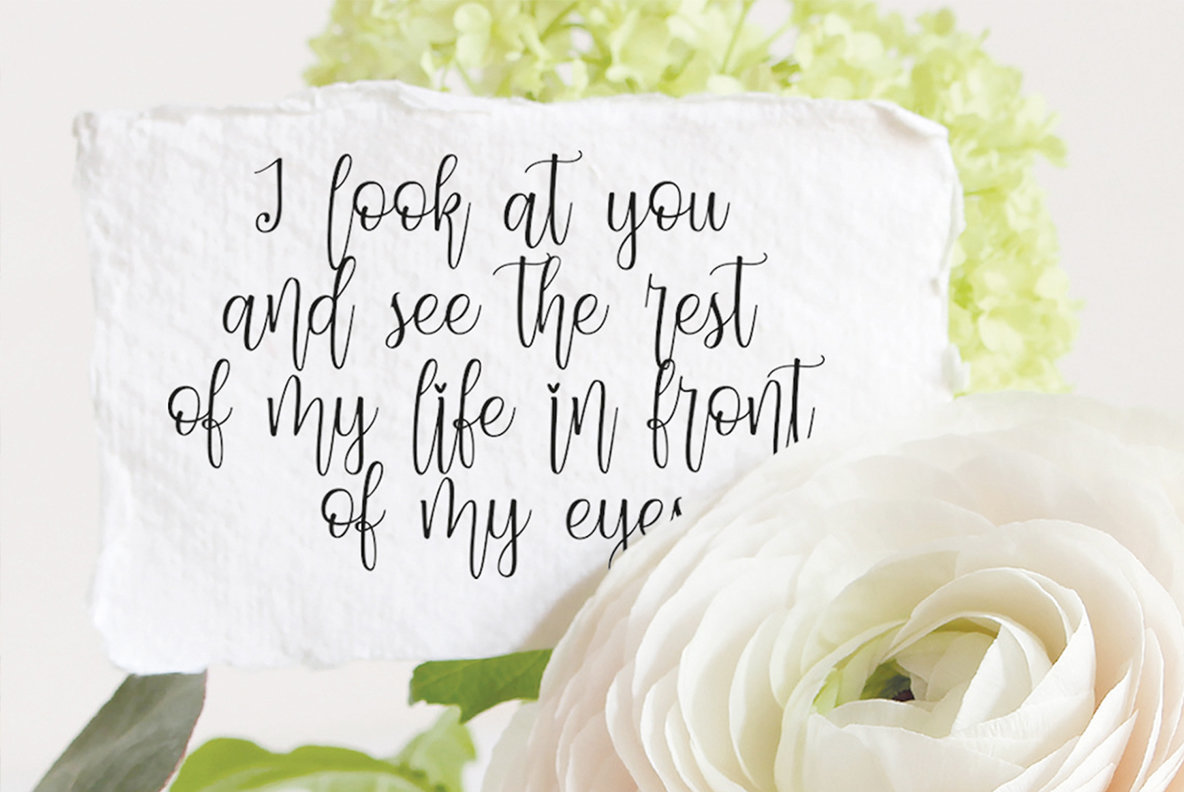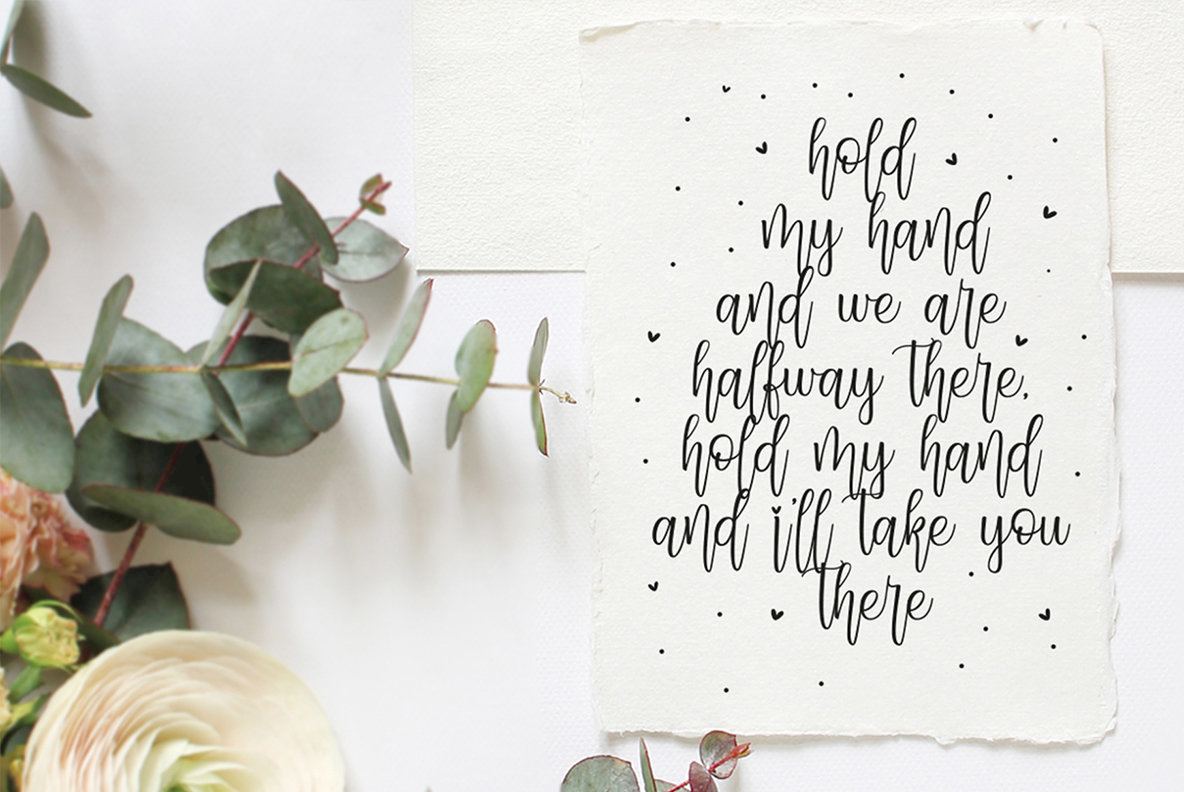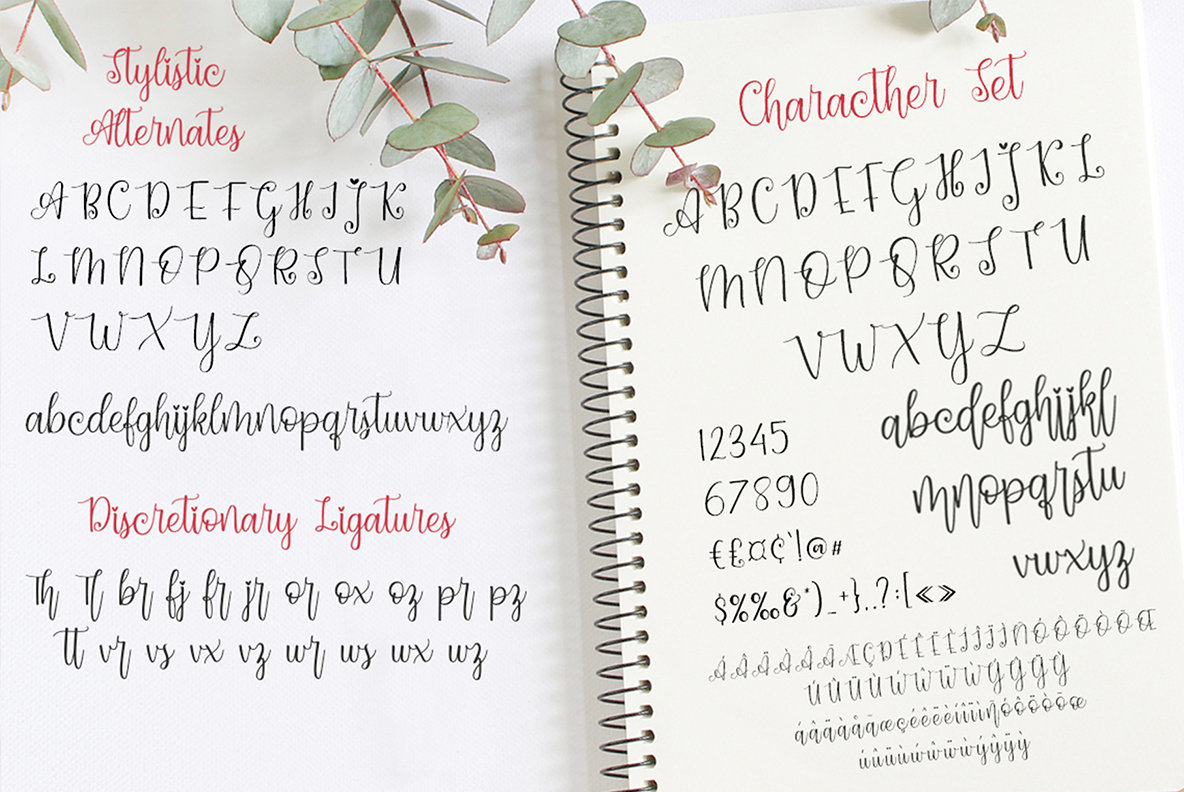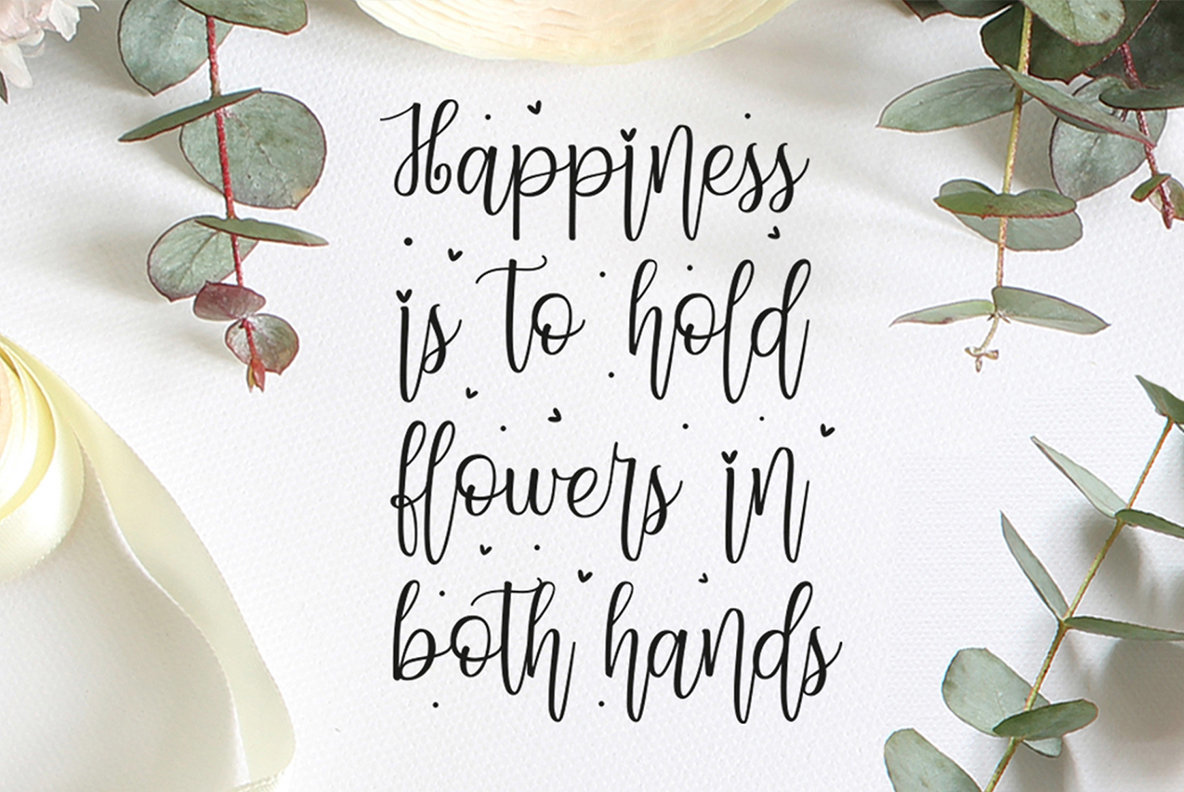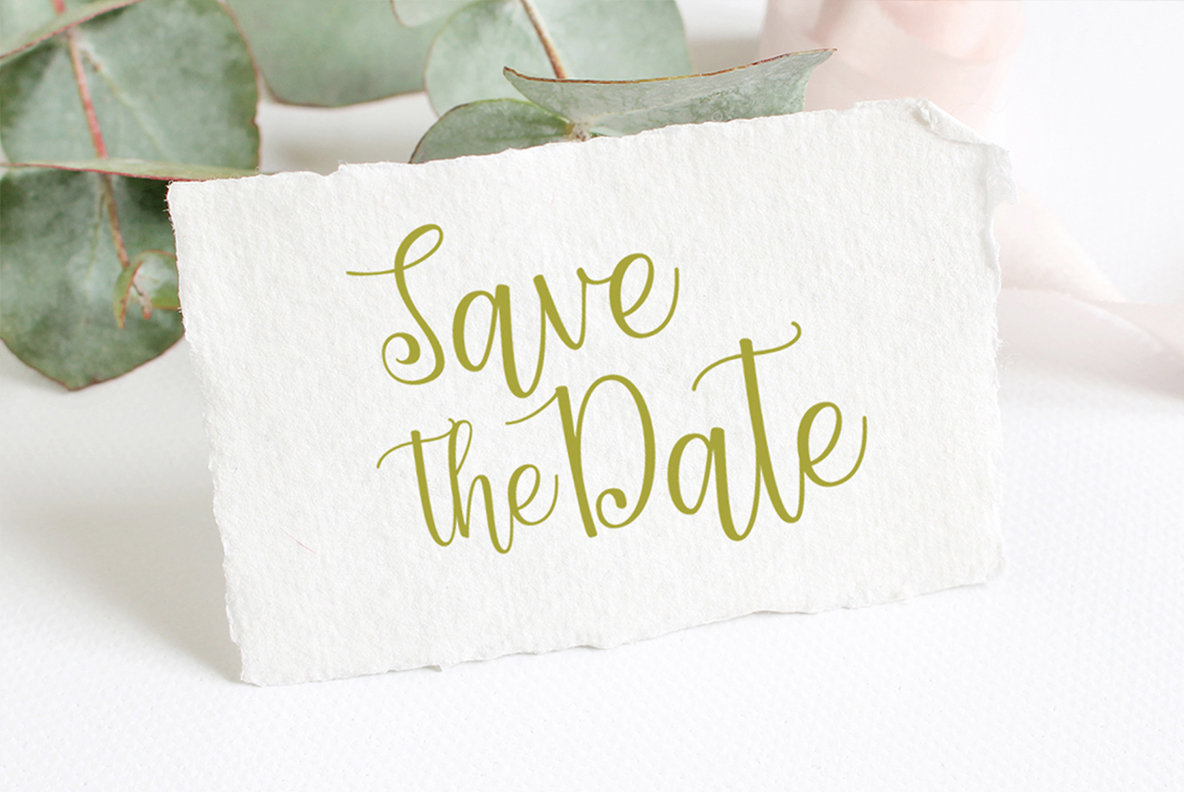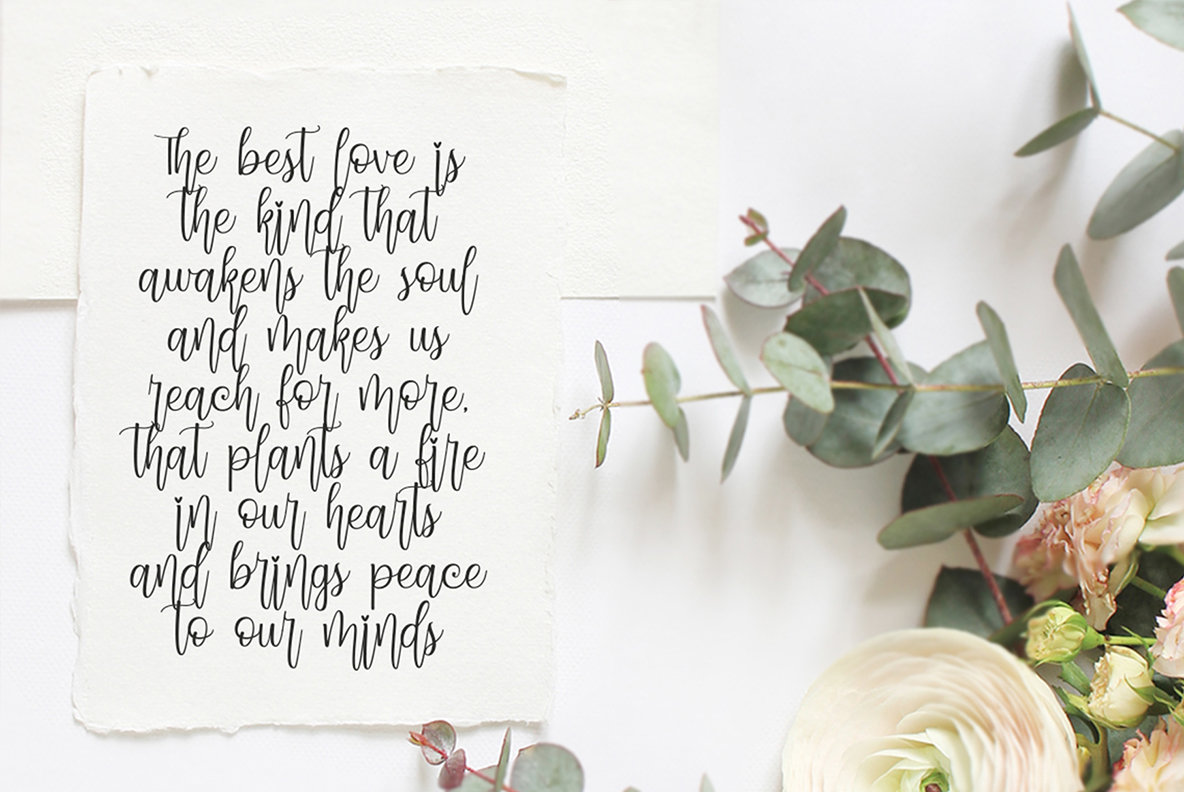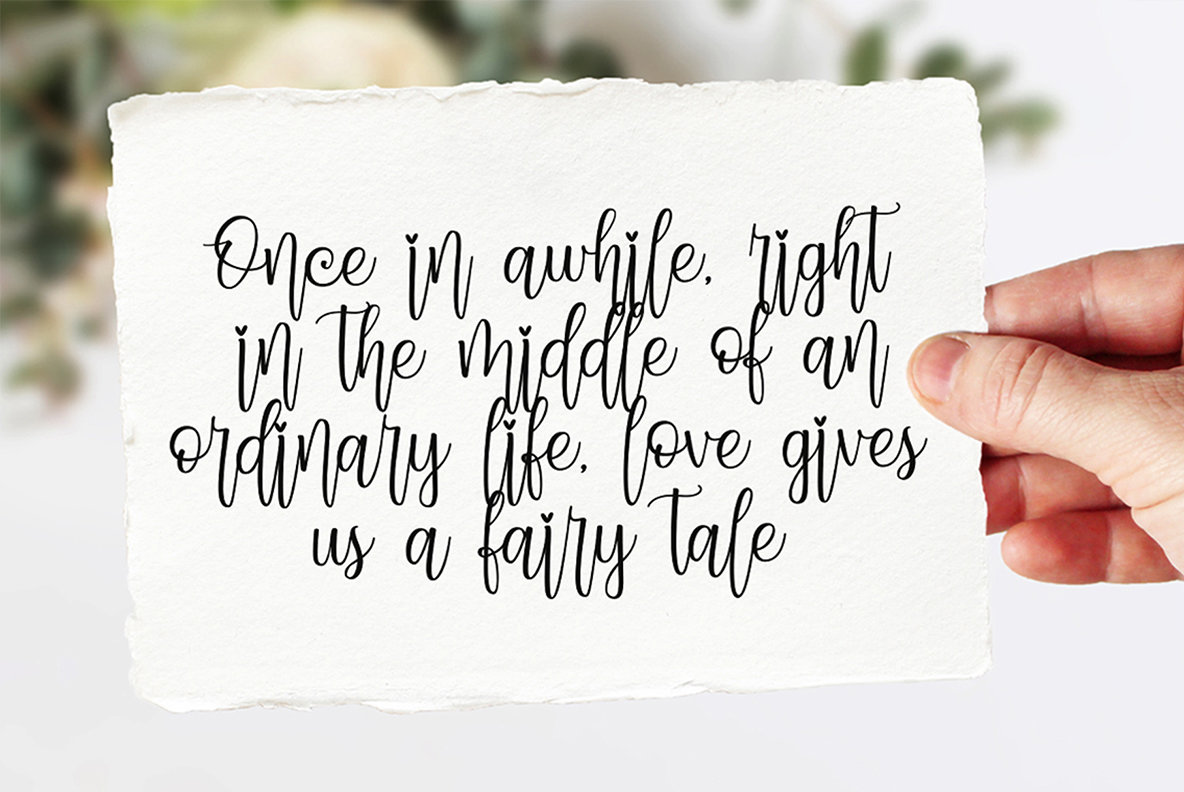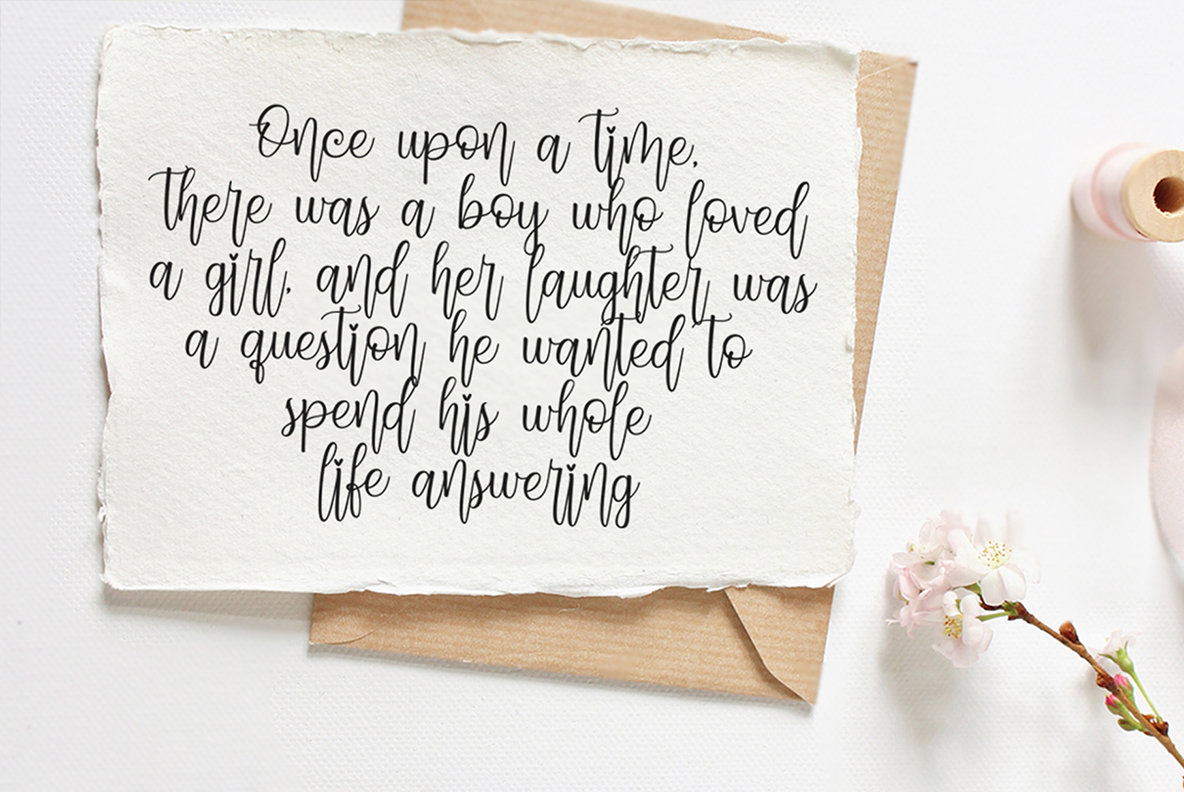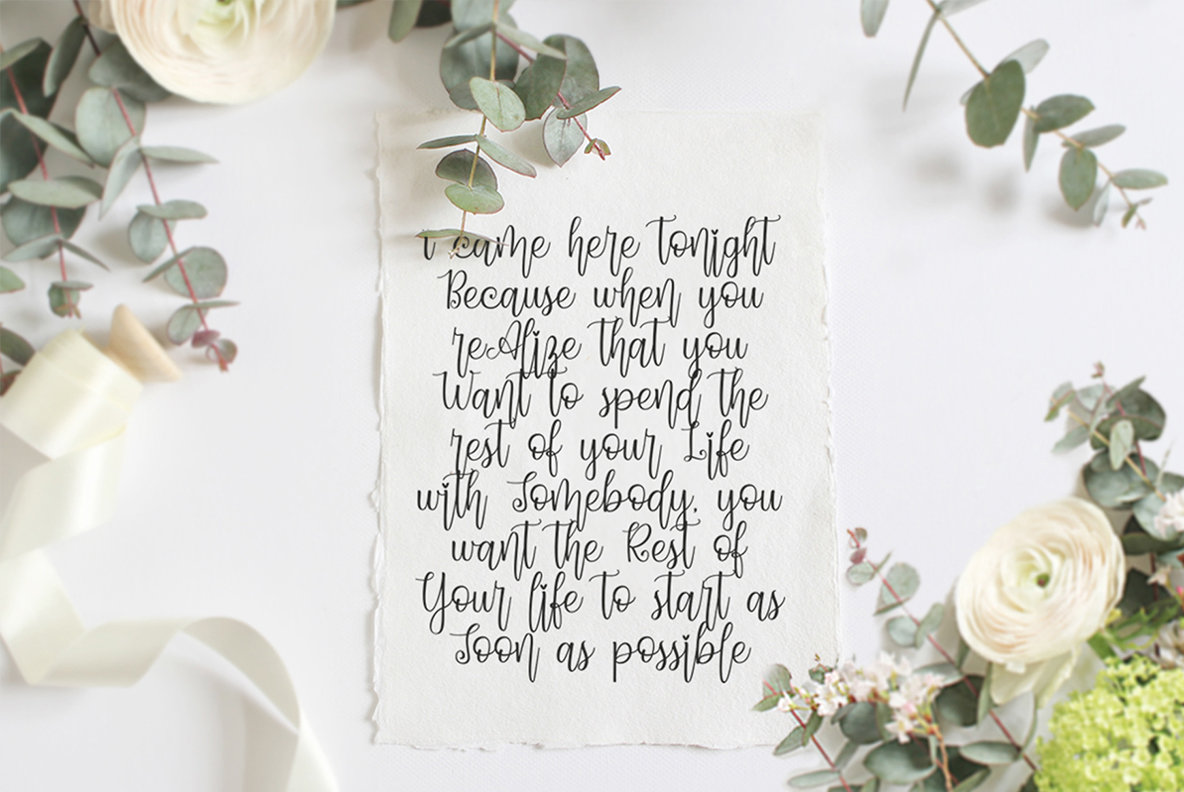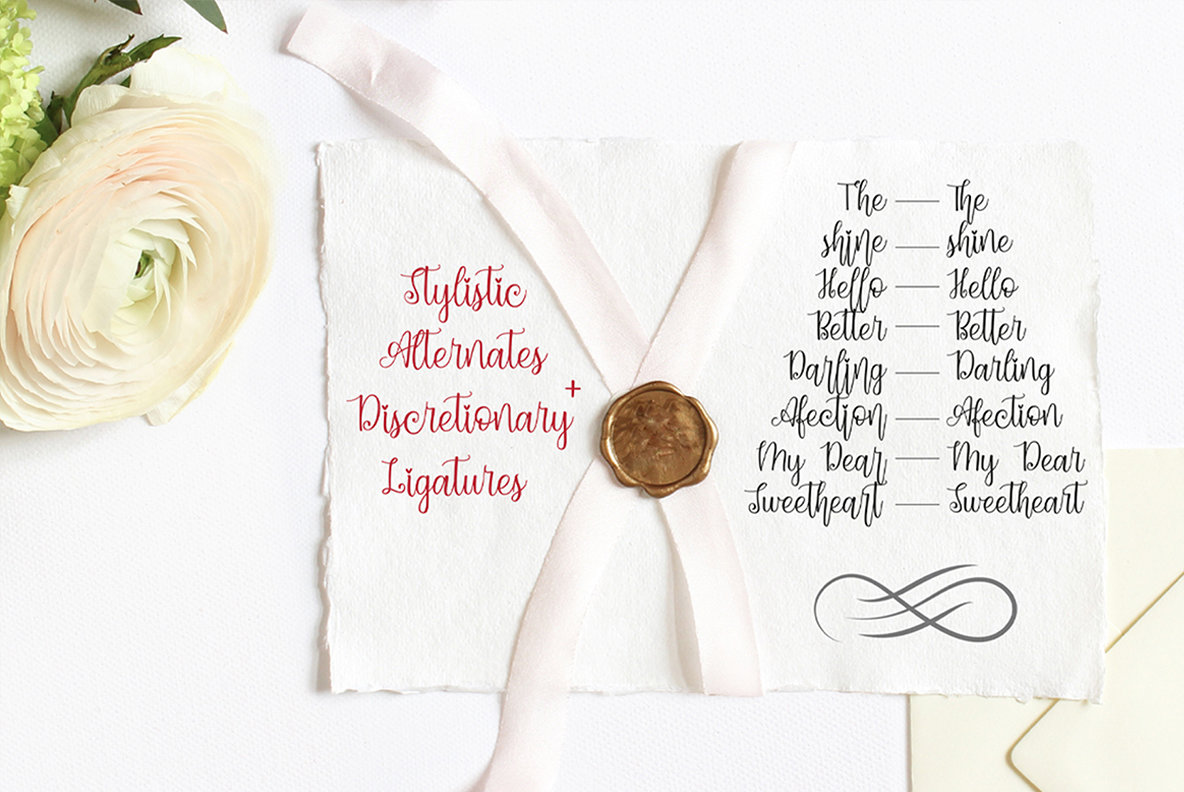
Dynamic Love Font
Dynamic Love
Dynamic Love exudes a handmade aesthetic, offering a natural touch akin to hand lettering. With a playful dancing baseline, this font embodies the essence of charm and elegance. Its fluid design effortlessly suits various creative applications such as headings, signatures, logos, wedding invitations, t-shirt designs, and more. To access OpenType Stylistic alternates, you will need software that supports OpenType features like Adobe Illustrator CS, Adobe Indesign, CorelDraw X6-X7, or Microsoft Word 2010 or later.Dynamic Love: Script with Handmade Charm